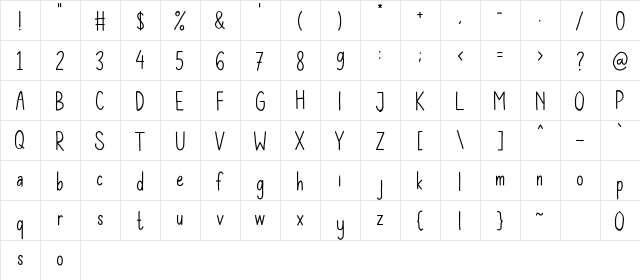
Vernal Park Regular
| Designer | Muhammad Husni Haikal |
Design Context for Vernal Park Typeface
Vernal Park is a composed and adaptable typeface that performs quietly and consistently across a wide range of design contexts.